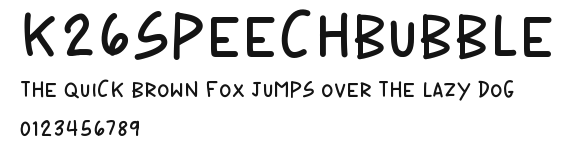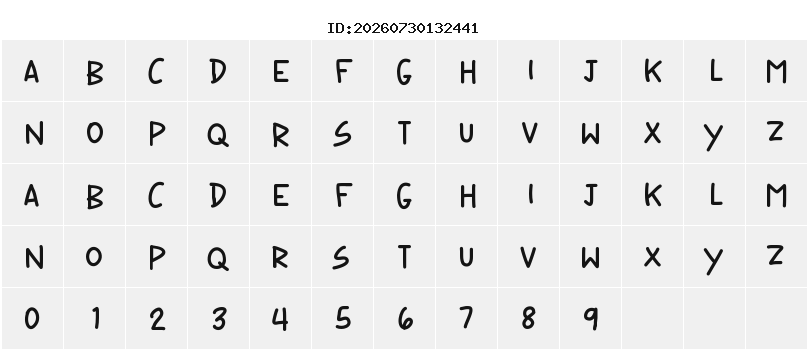
K26SpeechBubble Preview
• Font Name: K26SpeechBubble
• Full Font Name: K26SpeechBubble
• PostScript Name: K26SpeechBubble
About K26SpeechBubble.ttf
K26SpeechBubble.ttf is a modern, elegant sans-serif font designed for ultimate readability and visual harmony. Perfect for branding, headlines, web design, and print materials.